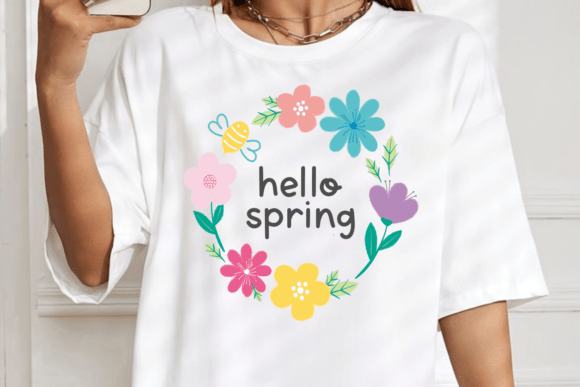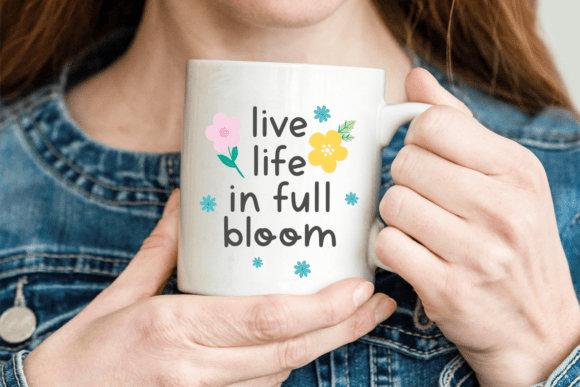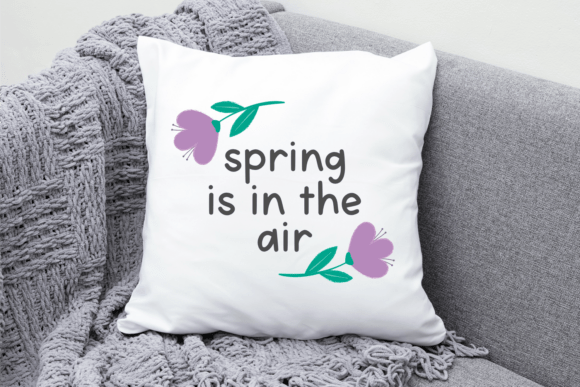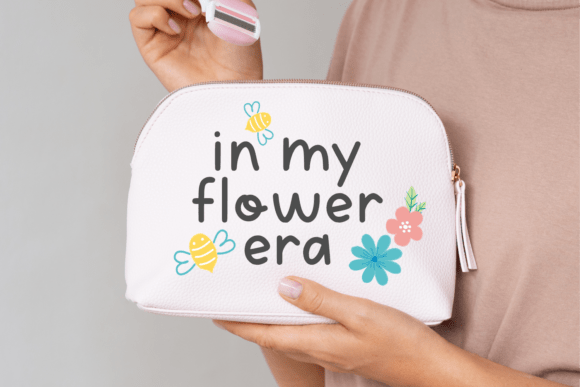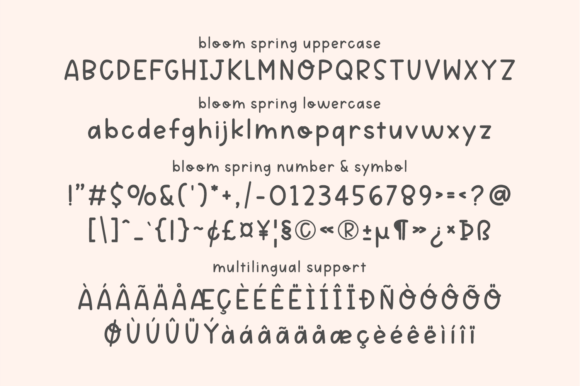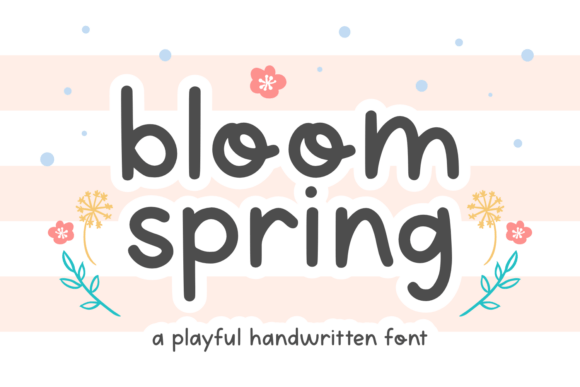
Bloom Spring Font: A Cheerful and Refreshing Typeface for Your Designs
As the seasons change and spring arrives, designers and crafters are on the lookout for fresh and inspiring typography to convey the cheerfulness and vibrancy of the season. Look no further than the Bloom Spring font, a delightful and uplifting typeface that embodies the spirit of spring in every stroke.
The Essence of Spring in Every Letter
Bloom Spring font exudes the joy and rejuvenation of spring, with each letter feeling light, airy, and effortless. The font’s loose and slightly curvy writing style gives it a spontaneous and playful impression, reminiscent of a cheerful hand-drawn font. Every stroke seems to dance with the spring breeze, infusing your designs with a sense of fun and carefree abandon.
Ideal for Spring-Themed Designs
With its infectious and cheerful personality, Bloom Spring font is the perfect choice for a wide range of spring-themed designs. Imagine using it for:
- Spring greeting cards: Share the joy of the season with loved ones using Bloom Spring font on your cards.
- Garden party invitations: Invite friends and family to join in the fun with elegant and playful invitations featuring Bloom Spring font.
- Family event posters: Create eye-catching posters for family events, such as Easter egg hunts or spring festivals, with Bloom Spring font.
Beyond Spring: Versatility for Various Design Projects
While Bloom Spring font is tailor-made for spring-themed designs, its versatility extends far beyond the season. Consider using it for:
- Children’s product designs: Add a playful touch to toys, games, and educational materials with Bloom Spring font.
- Snack brand logos: Give your snack brand a fun and youthful personality with Bloom Spring font.
- Spring-themed social media content: Bring a smile to your followers’ faces with engaging social media posts featuring Bloom Spring font.
What Makes Bloom Spring Font Special?
Bloom Spring font offers a unique combination of characteristics that make it stand out from other typefaces:
- Unique letterforms: Each letter is carefully crafted to convey a sense of movement and playfulness.
- Hand-drawn feel: The font’s slightly curvy and irregular lines give it a charming, hand-drawn quality.
- Light and airy: Bloom Spring font feels effortless and breezy, perfect for designs that need to convey a sense of joy and freedom.
Tips for Using Bloom Spring Font Effectively
To get the most out of Bloom Spring font, consider the following tips:
- Pair with complementary fonts: Combine Bloom Spring font with simpler fonts to create visual interest and hierarchy.
- Experiment with colors: Bright and pastel colors complement Bloom Spring font’s cheerful personality.
- Play with textures: Add depth and visual interest to your designs by incorporating textures and patterns.
Bloom Spring font is a delightful and refreshing typeface that embodies the spirit of spring. With its light, airy, and playful personality, it’s perfect for designers and crafters looking to add a touch of joy and whimsy to their designs. Whether you’re creating spring-themed designs or simply want to inject some fun and personality into your work, Bloom Spring font is an excellent choice.